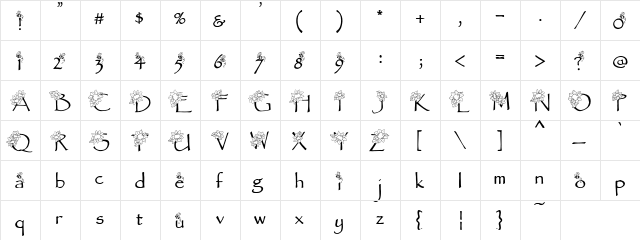
PC Grandma's Garden Regular
Design Context for PC Grandma's Garden Typeface
PC Grandma's Garden is a composed and adaptable typeface that performs quietly and consistently across a wide range of design contexts.